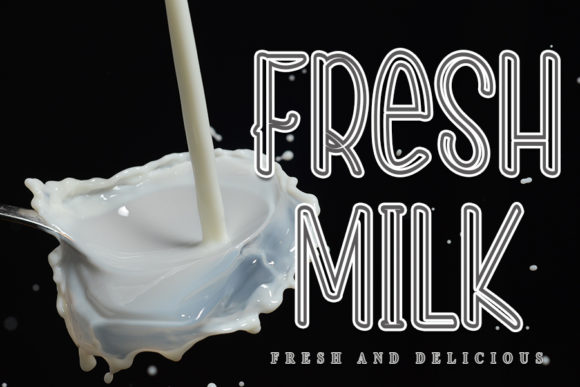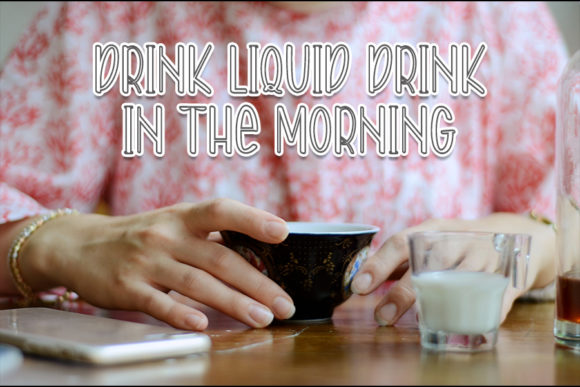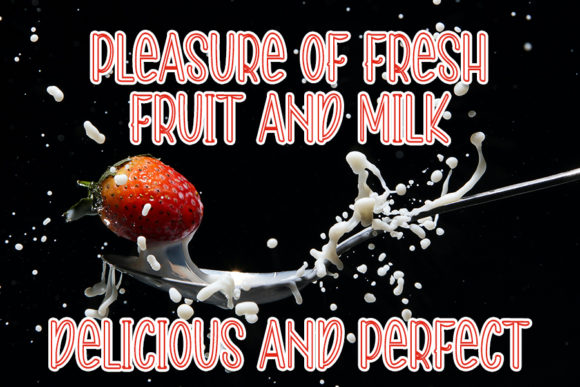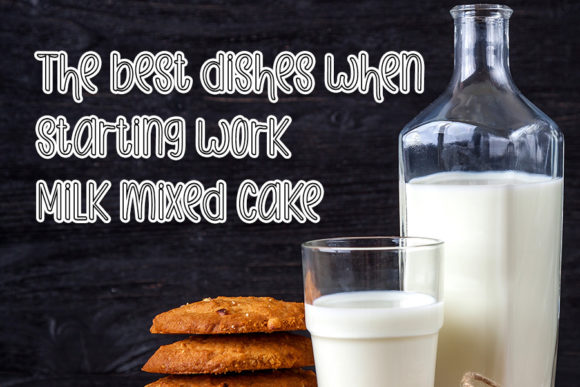
Coco Milk Font: The Perfect Blend of Modern and Quirky
In the world of typography, fonts play a crucial role in defining the visual identity of a brand or project. For designers and crafters looking for a modern and eye-catching font, Coco Milk Font is an excellent choice. This modern display font is clean, quirky, and versatile, making it perfect for various applications, from logos and branding to social media and DIY projects.
What is Coco Milk Font?
Coco Milk Font is a contemporary display font designed to make a statement. Its clean lines and subtle quirks give it a unique personality that sets it apart from more traditional fonts. The font’s modern aesthetic makes it ideal for designers and crafters who want to add a touch of sophistication and whimsy to their work.
Key Features of Coco Milk Font
- Clean and Modern Design: Coco Milk Font boasts a clean and modern design that is perfect for creating visually appealing logos, branding materials, and social media graphics.
- Quirky and Unique: The font’s subtle quirks add a touch of personality to any project, making it stand out from more traditional fonts.
- Versatile: Coco Milk Font is versatile and can be used for a wide range of applications, from logos and branding to social media graphics and DIY projects.
- Easily Readable: Despite its modern and quirky design, Coco Milk Font is easily readable, making it perfect for use in various contexts.
Use Cases for Coco Milk Font
Coco Milk Font is a versatile font that can be used in various contexts. Here are some use cases where this font excels:
- Logos and Branding: Coco Milk Font is perfect for creating modern and eye-catching logos and branding materials that make a statement.
- Social Media Graphics: The font’s clean and modern design makes it ideal for creating social media graphics that grab attention.
- DIY Projects: Coco Milk Font is a great choice for crafters and DIY enthusiasts who want to add a touch of personality to their projects.
- Packaging Design: The font’s quirky and unique design makes it perfect for packaging design that stands out on store shelves.
Tips for Using Coco Milk Font
To get the most out of Coco Milk Font, here are some tips to keep in mind:
- Use it as a Display Font: Coco Milk Font is designed as a display font, so use it to make a statement in your designs.
- Experiment with Colors and Textures: The font’s clean design makes it easy to experiment with different colors and textures to add depth and interest.
- Pair it with Other Fonts: Coco Milk Font pairs well with other fonts, so don’t be afraid to experiment with different font combinations to create visual interest.
Coco Milk Font is a modern display font that is clean, quirky, and versatile. Its unique personality makes it perfect for designers and crafters who want to add a touch of sophistication and whimsy to their work. With its wide range of use cases and tips for use, Coco Milk Font is an excellent choice for anyone looking to elevate their designs and projects.